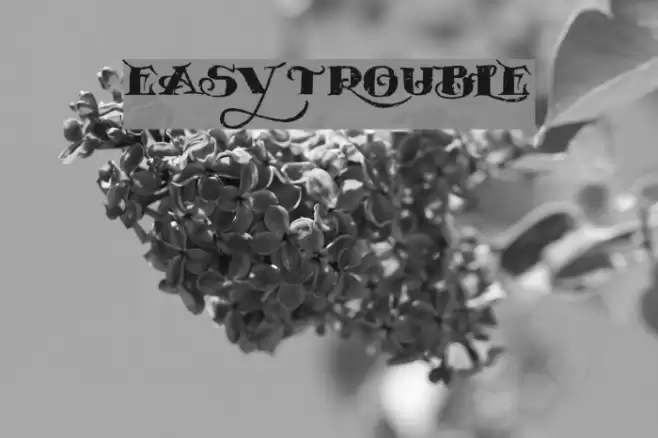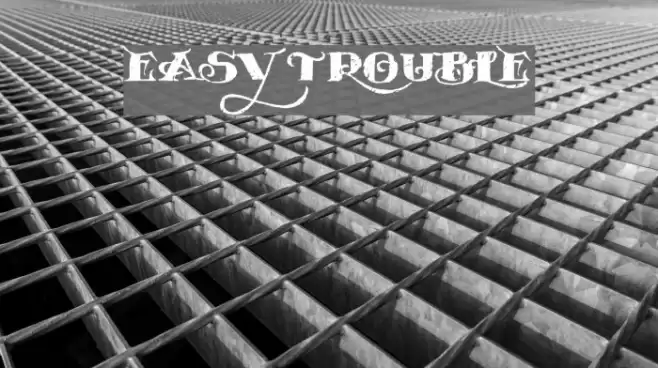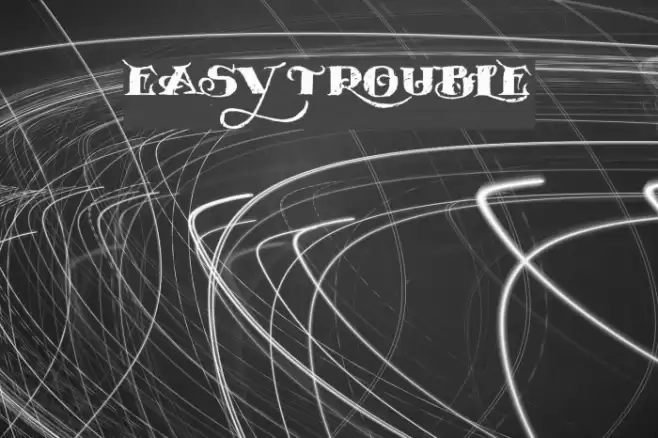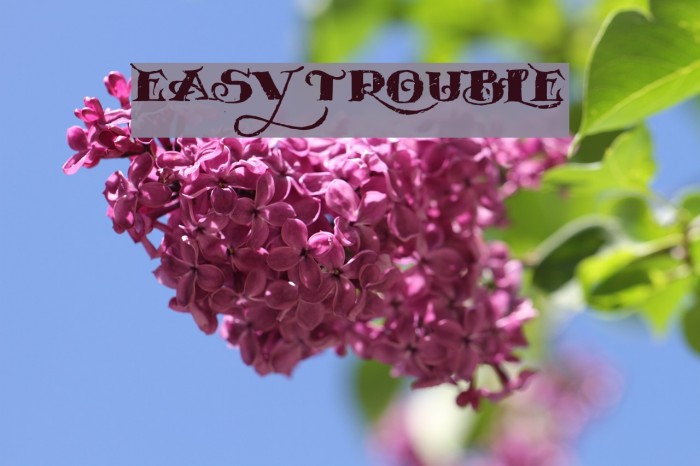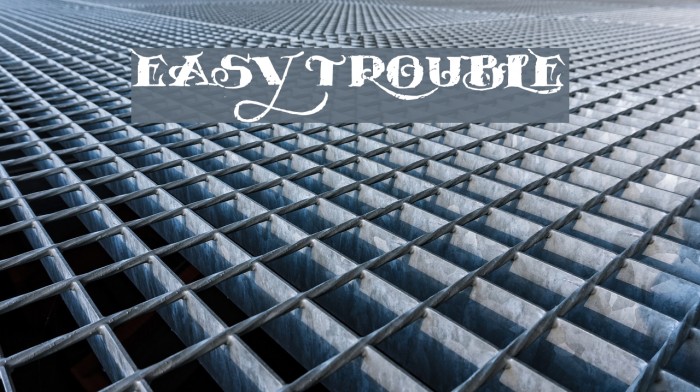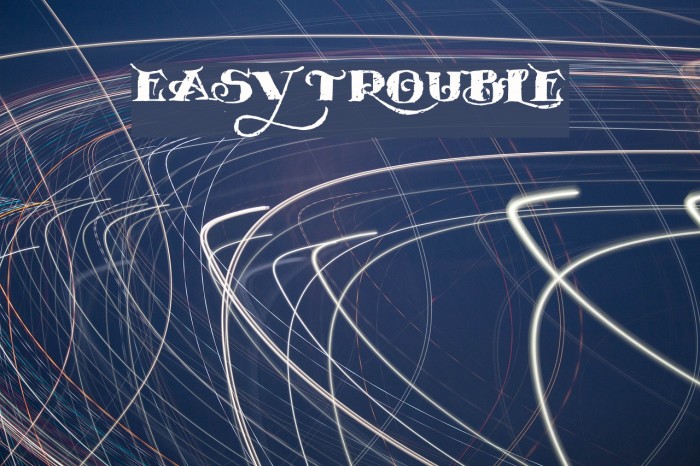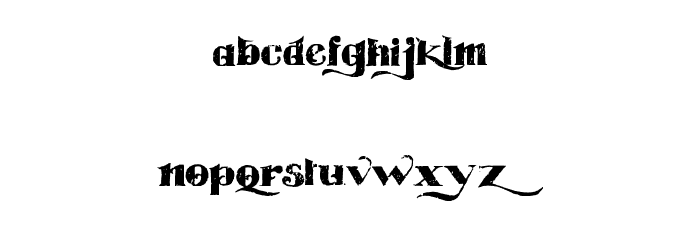
EASY TROUBLE Font
EASY TROUBLE Description
This font features an elaborate and decorative style, reminiscent of classic calligraphy with a modern twist. The uppercase letters are adorned with intricate flourishes and swashes, giving them a dramatic and artistic appearance. The lowercase letters maintain a consistent style, with some characters extending below the baseline, adding to the font's ornate nature. The overall design is bold, with a high contrast between thick and thin strokes, enhancing its visual impact. This font is suitable for projects that require a touch of elegance and sophistication, such as invitations, branding, and decorative headings.
An ornate, high-contrast decorative font with elaborate flourishes from Uncategorized fonts.
- Proposed Projects: Ideal for wedding invitations, luxury branding, decorative headings, and artistic projects.
- Use Case: Headlines, Logos, Invitations